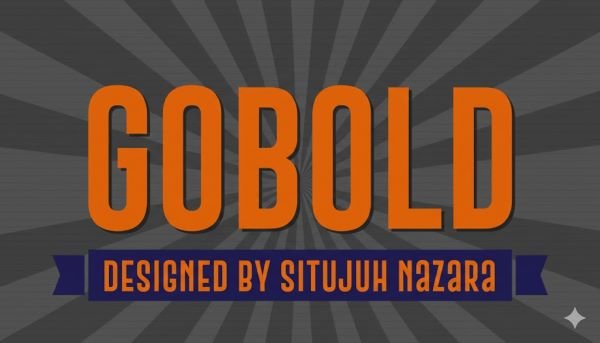
Gobold Font
Gobold Font by 7NTypes is one of those workhorses that earns its place in a design toolkit quickly. Its geometric structure gives it a naturally clean authority — the kind that makes headlines read faster and logos feel more considered without any added effort.
Designer: 7NTypes
Style: Sans Serif, Bold, Geometric